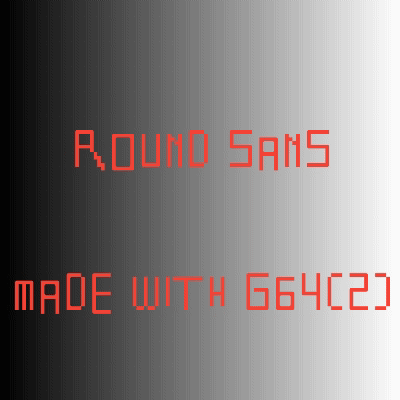
TO BEGIN 2,500+ CHARACTERS FOR ROUND SANS FONT
2,500+ glpyhs yayyyyyyyyyyyy!
yayyyy its 3000 characters from zfonttool!
Yes Round sans
NOTE GLYPH:
glyph limit to 65,536!
U+F6C3 USED
Well, actually, the glyph limit is 65,535 in TrueType and OpenType
unicode 15 now here next update
@EverythingMessages U15 is expected to come out September 2022…
4000 chars zfonttool
While you've put a lot of work into this font, it does seem very off. Most notably, the letters and numbers are all different sizes. I recommend you turn on guides to help you make all the letters the right height. Also, why do you have all-caps for Latin, but both cases for Greek? You should be consistent, and for a Unicode font like you're aspiring for, it's highly recommended to have lowercase letters. And your lowercase letters (when you have them) are really tiny.
500 glyphs left to 4000 glpyhs
4,000 characters?
Wow its awesome its now its 4000 glyphs!! (EXT-B)!
Basic Latin
Latin supplement
latin-ext a
latin-ext b
latin-ext c
latin ext d
latin-ext e
latin-ext f
latin-ext g
basics
work latin ext-h!
Meaning round sans font what's emoji font “?‍?” ok there❤️
unicode 16:Unicode 16
Unicode 15:
New Blocks:
Abraic EXT-C
Devanagari EXT-A
Kawi
Kaktovik Numerals
Cyrillic EXT-D
Nag Mundari
CJK Unified Ideographs Extension H
( 4488 CHARACTERS )
“??????”
CJK UNDEFINED IDEOGRPAHS EXTENSION-B
the animation red, green, yellow.
so to so many died greek extended-
1f00 to 1ffff
what 5,000 characters?
Greek Ext. is actually 1f00 to 1fff, so 256 codepoints, some are unassigned… Every unicode block is in only one plane so far, and is contiguous…
private use area planes (15 to 16)